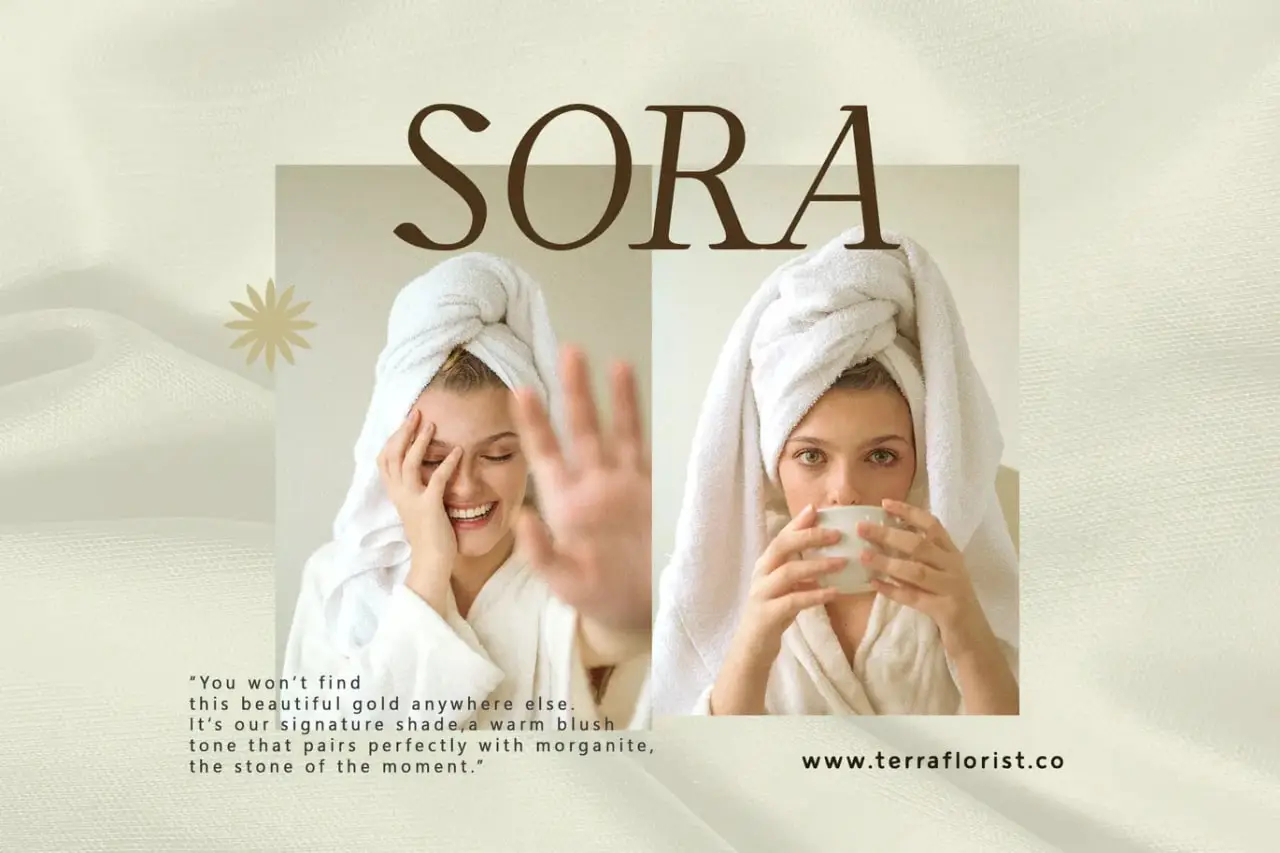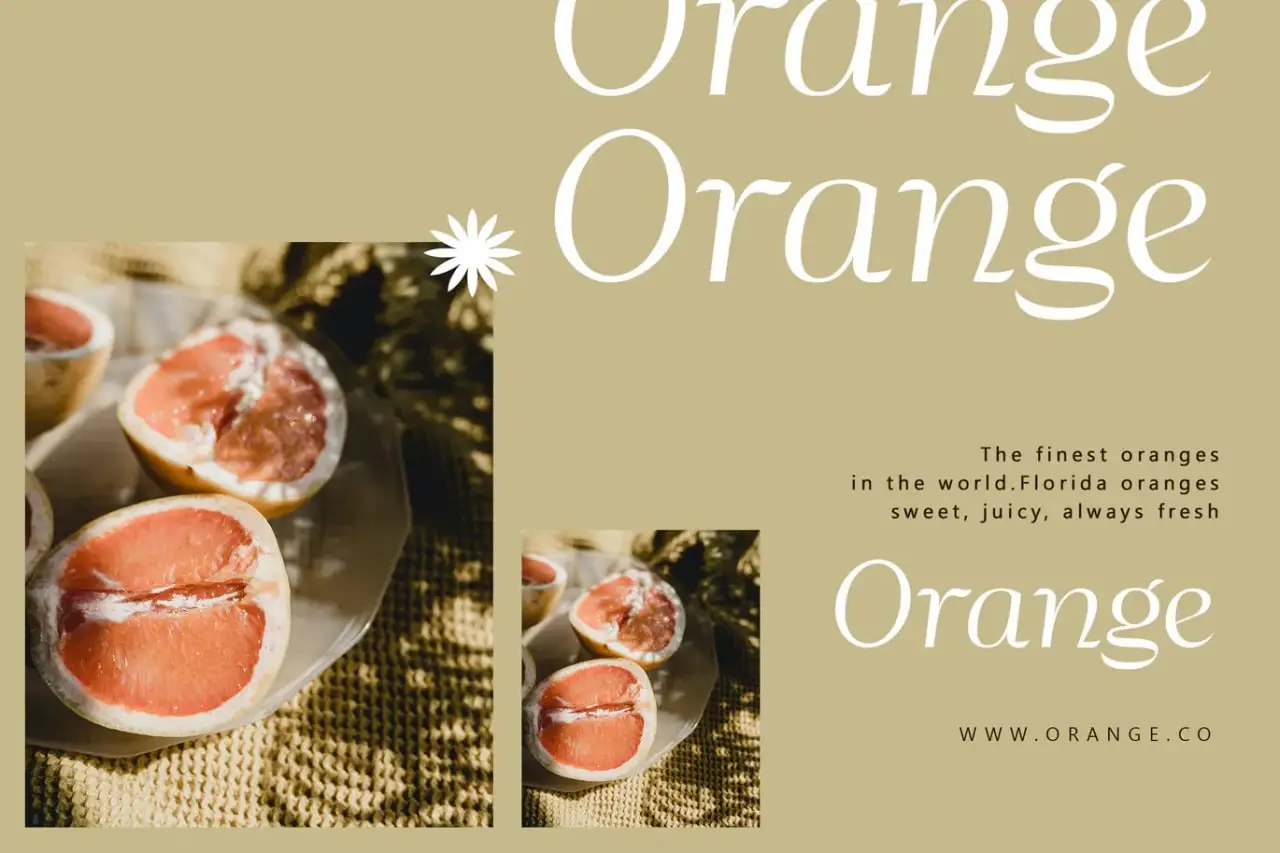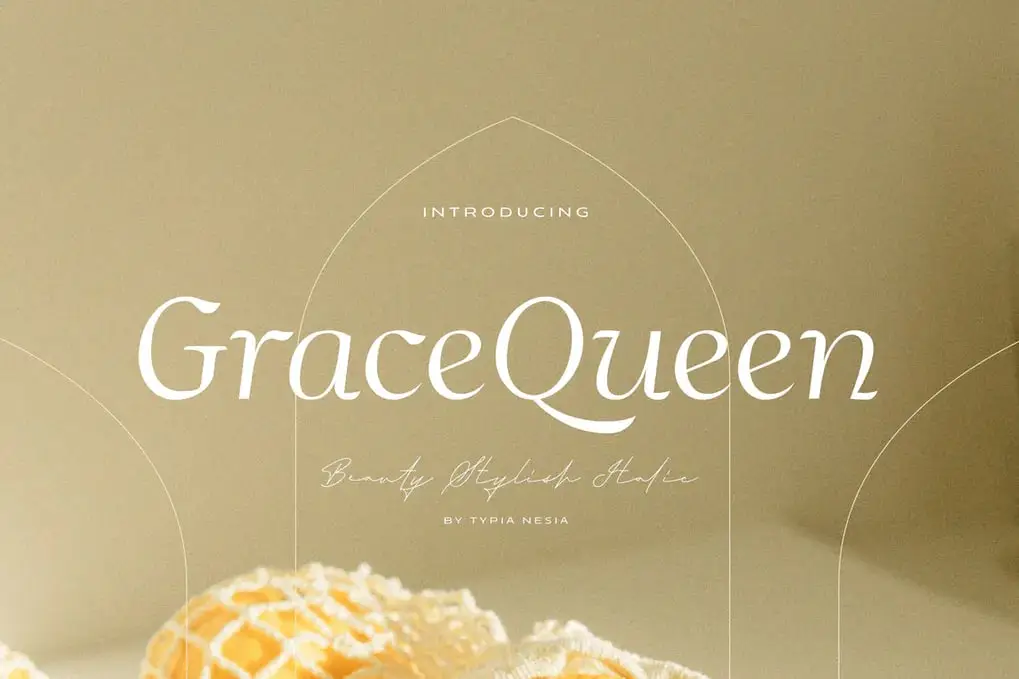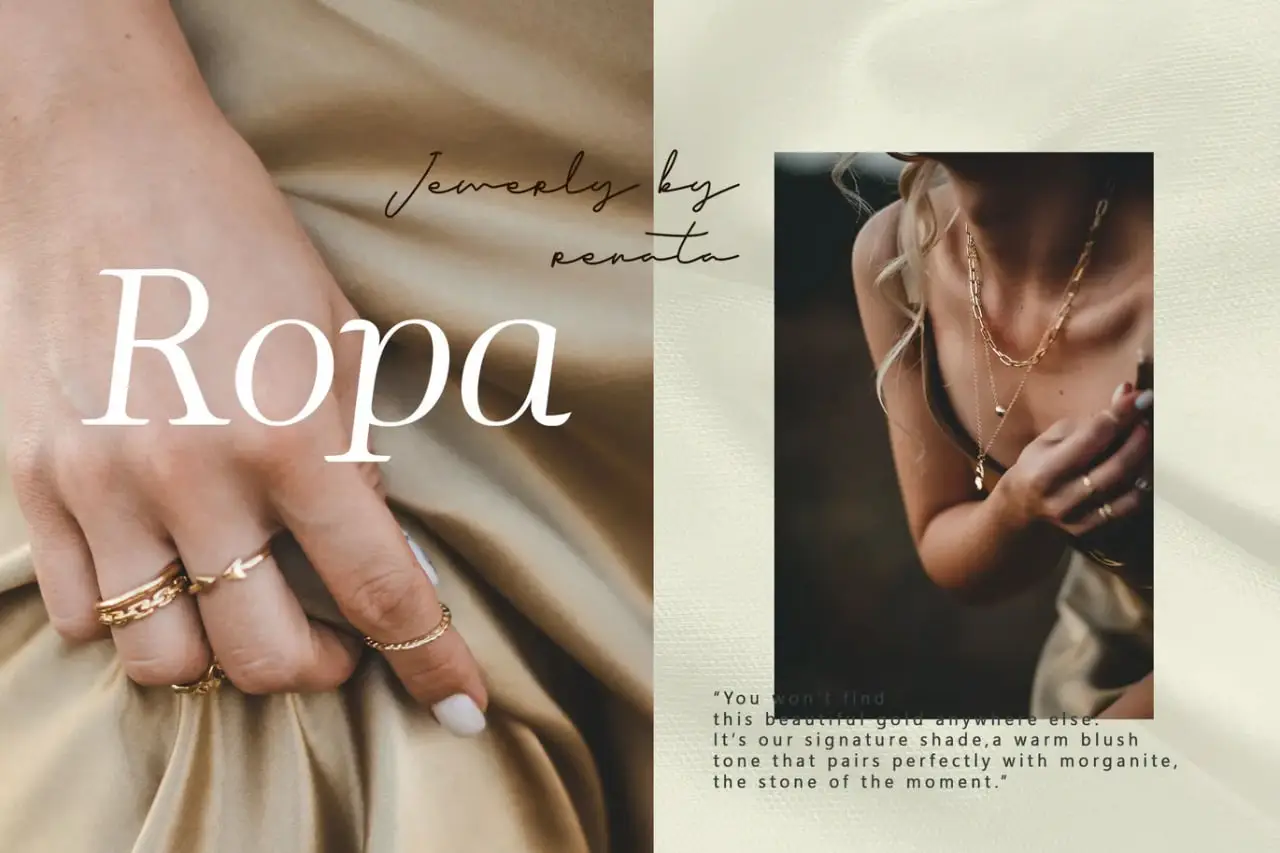
Yipianesia Grace Queen Beauty Stylish Italic Font
Introducing the Yipianesia Grace Queen Beauty Stylish Italic Font, a beautifully crafted typeface that embodies elegance and sophistication. This font is perfect for a variety of applications, from branding to web design, ensuring your projects stand out with style.
• Stylish italic design for a modern touch
• Multiple weights available for versatility
• Clear legibility at various sizes
• Unique character set for creative expression
• Style: Italic
• Ideal for logos, invitations, and greeting cards
• Perfect for web applications and UI design
• Use in print materials for a touch of elegance